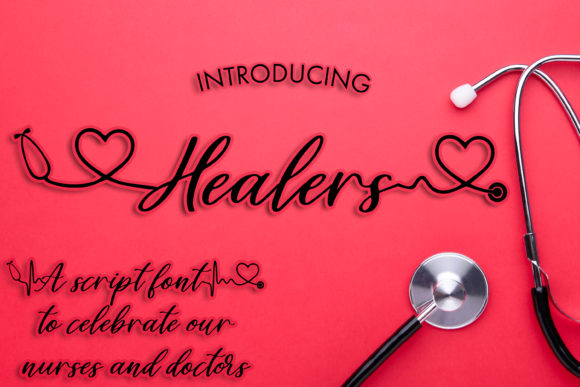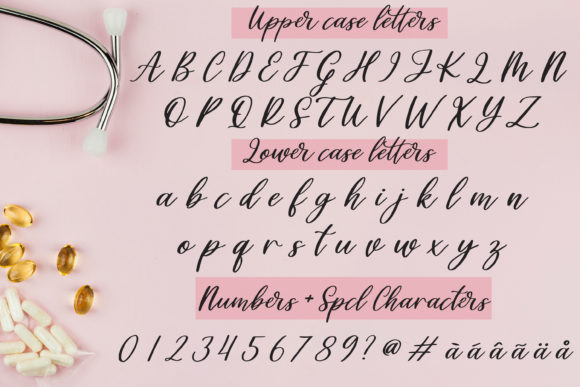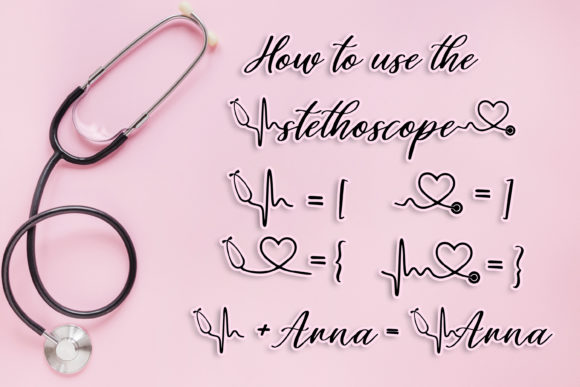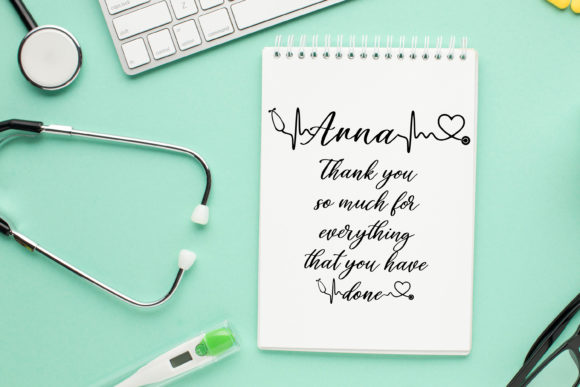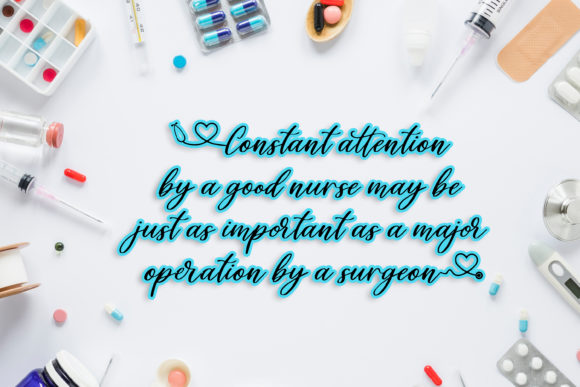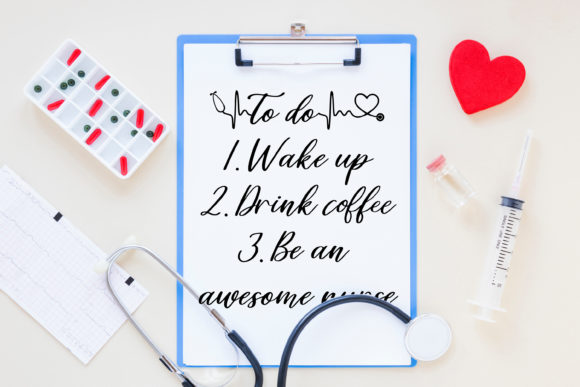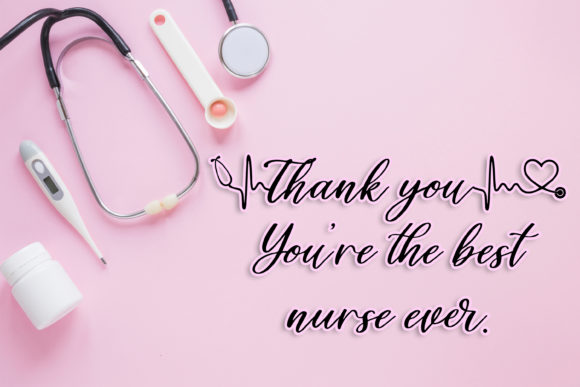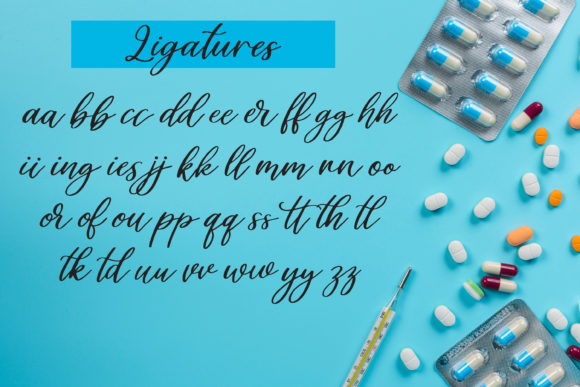
HomeScript FontsHealers Font Script Fonts Healers Font FacebookXPinterestWhatsApp Healers Font Poster 2 Healers Font Poster 3 Healers Font Poster 4 Healers Font Poster 5 Healers Font Poster 6 Healers Font Poster 7 Healers Font Poster 8 About Healers Font Healers is a script font to celebrate our nurses and doctors. Get inspired by its special heart characters! DOWNLOAD ON CREATIVE FABRICAThis font is sold and delivered by Creative Fabrica. Font Canyon may earn a commission if you buy through this link. People also explored Grogoth Font Hangtuak Font Silhouette Elegant Font For My Children Barara Font Velcro Dusk Til Dawn Dreamcatcher Barthley Font Delicious Toast Font 333 0 TagsHealers Font Previous articleGradness FontNext articleWindha Font LEAVE A REPLY Cancel reply Comment: Please enter your comment! Name:* Please enter your name here Email:* You have entered an incorrect email address! Please enter your email address here Website: Save my name, email, and website in this browser for the next time I comment. Personal Use Free Whoa Personal Use Free Read more about this font Sileighty Personal Use Free Read more about this font Burgie Personal Use Free Read more about this font Love Memories Personal Use Free Read more about this font BLOG Fonts That Capture the Spirit of New York City New York City is more than just a place—it’s an experience, a rhythm, a visual language... How to Install and Use Fonts on Windows, macOS, and Web Projects Exploring Font Trends Free vs Paid Fonts: Why Investing in Premium Fonts Is Worth It